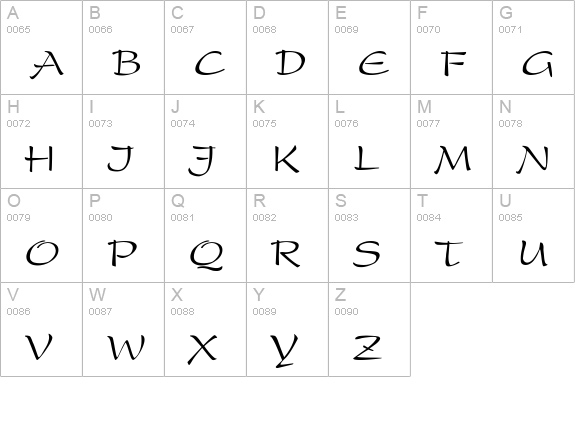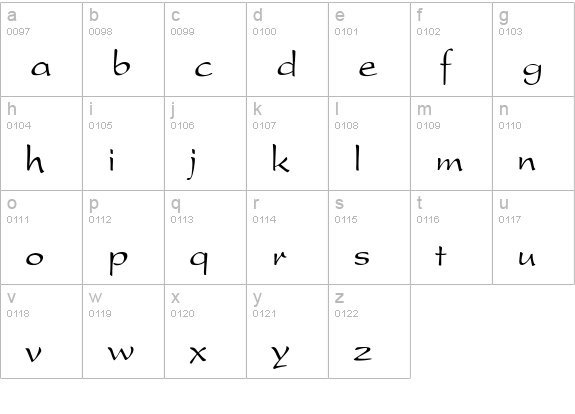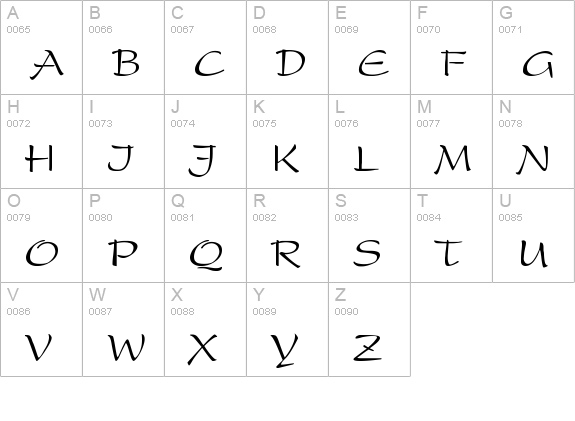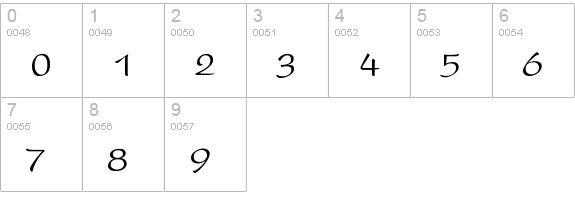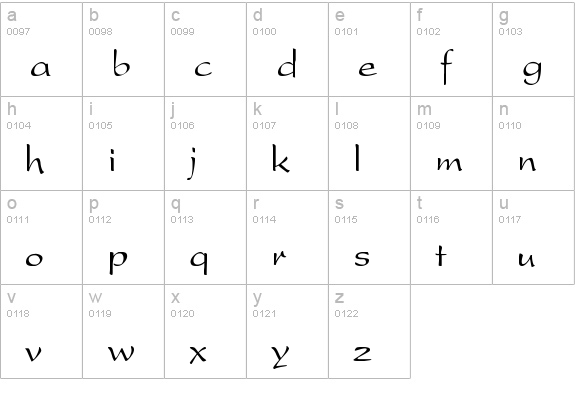
PresentScript-Thin Font Details
PresentScript-Thin is a delicate, low-contrast variant in the PresentScript typeface family \xE2\x80\x94 well suited to fashion editorial, minimal branding, and high-contrast display.
PresentScript-Thin font is a stunning and elegant typeface that exudes sophistication and modernity. With its sleek and slender design, this font is perfect for creating a sleek and contemporary look in your projects. The thin strokes and delicate curves of PresentScript-Thin font add a touch of refinement to any design, making it ideal for branding, logos, invitations, and more. Best of all, PresentScript-Thin font is available for free download at FontsMarket.com, allowing you to easily access and use this beautiful font in your designs without any cost. Don't miss out on the opportunity to enhance your projects with the timeless charm of PresentScript-Thin font. Download it today and elevate your designs to new heights!